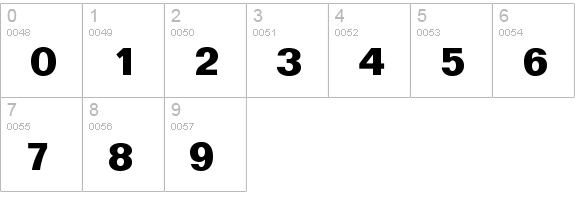
Folio BQ Bold Font Details
Folio BQ Bold is a strong, high-contrast variant in the Folio typeface family \xE2\x80\x94 well suited to headlines, attention-grabbing titles, and strong calls-to-action.
Folio BQ Bold font is a striking and modern typeface that exudes strength and confidence. Its bold and clean lines make it perfect for creating eye-catching headlines and titles. The thick strokes of this font command attention while maintaining a sense of sophistication and professionalism. What sets Folio BQ Bold font apart is that it is available for free download at FontsMarket.com. This means that you can easily access this versatile and impactful font to enhance your design projects without any cost. Whether you are working on branding materials, posters, or website graphics, Folio BQ Bold font will make a bold statement and elevate your design to the next level. Don't miss out on the opportunity to add this exceptional font to your collection for free!